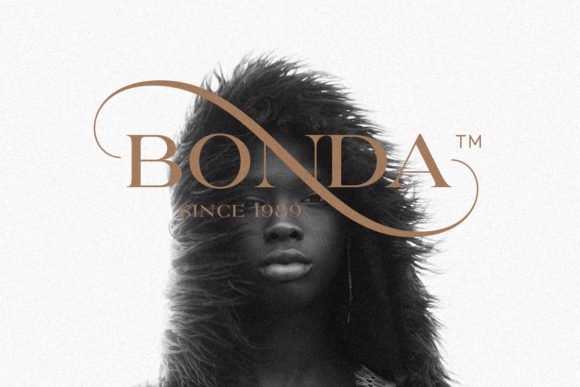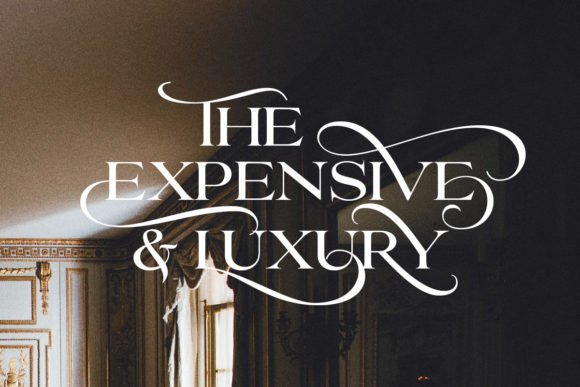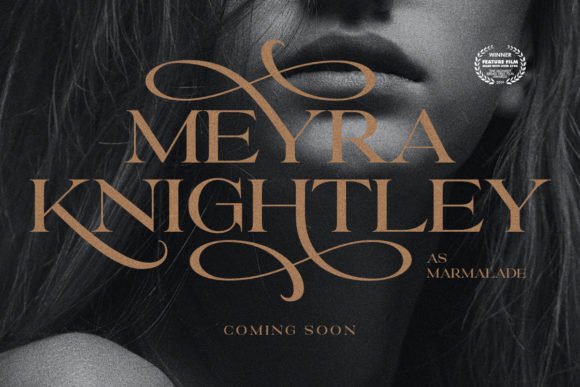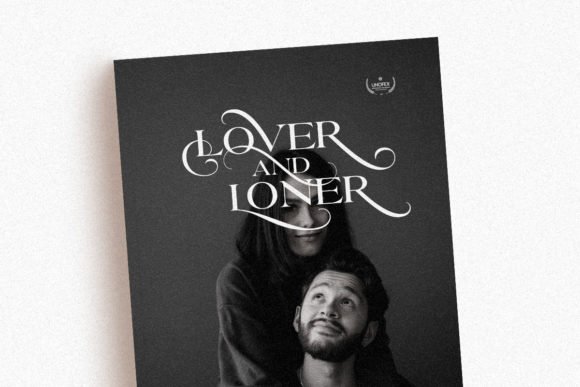
Proyale Font
Proyale is a classic and elegant serif font. It works incredibly well on designs requiring an elegant vibe. It is perfect for any branding project such as logos, t-shirt printing, creative products, and more.